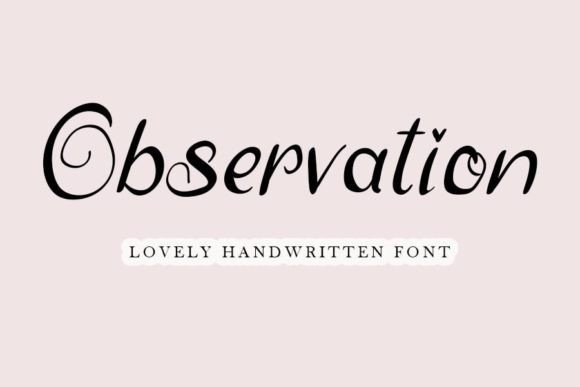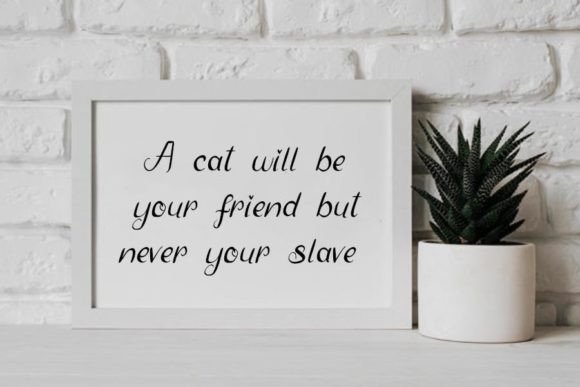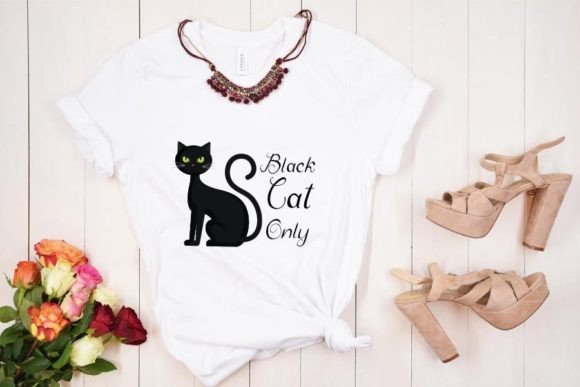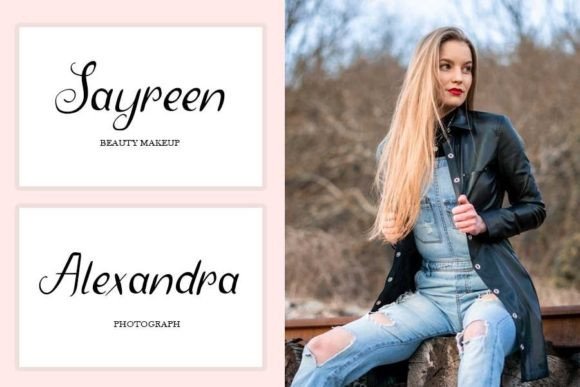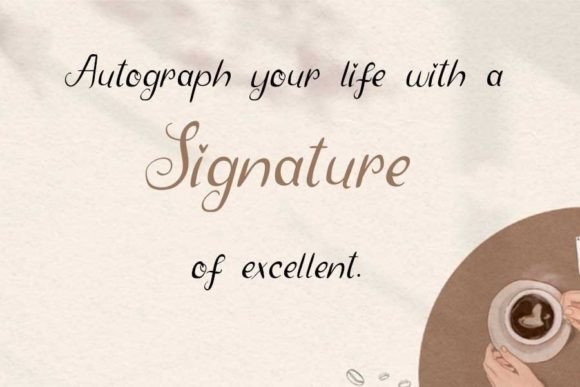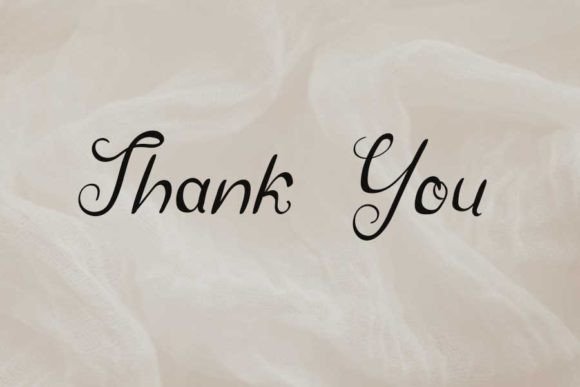
Observation Font
“Observation: Cute and Trendy Handwritten Font for Limitless Creativity
Introducing ‘Observation,’ a cute and trendy handwritten font that brings a natural and unique style to your creative projects. With its playful design, this font is incredibly fitting for a large pool of designs, and the only limit is your imagination! Whether you’re working on invitations, social media graphics, logos, or any other design, Observation is the perfect choice. This font is not just a typeface; it’s a design asset that sparks creativity and adds a delightful touch to your work.
The cute and trendy style of Observation makes it a versatile choice for a variety of creative applications. The handwritten design adds a personal and playful touch, enhancing the overall aesthetics and creating a visually pleasing and memorable experience.
For invitations, social media graphics, and logos, Observation becomes a standout choice, infusing a sense of cuteness and trendiness into your text. The font’s natural and unique style contributes to a visually appealing and memorable look.
In various creative projects, Observation serves as a delightful element, creating a visual impact with its cute and trendy design. Its versatility adds a playful touch to your endeavors, making it suitable for a wide range of contexts.
Observation’s ability to fit seamlessly into diverse designs makes it a valuable addition to your font library. Whether you’re working on invitations or social media graphics, Observation brings a cute and trendy character to your designs.
In conclusion, Observation is more than just a typeface; it’s a design companion that sparks creativity and adds a delightful touch to your creative toolkit. Let Observation be the artistic element that elevates your invitations, social media graphics, logos, and various other projects. Embrace the cute and trendy charm of Observation, and watch as it transforms your ideas into visually enchanting and memorable experiences.”